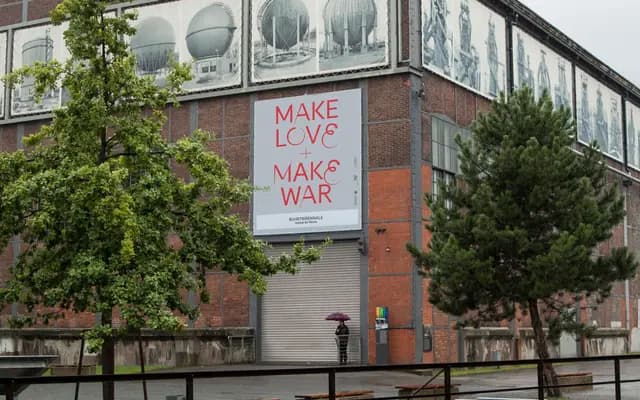
New Panam
Swiss Typefaces · Ian Party and Emmanuel Rey
A humanist sans by Ian Party and Emmanuel Rey taking cues from mid-century airline and travel lettering.
Designed at Swiss Typefaces by Ian Party and Emmanuel Rey, New Panam draws on the visual language of mid-century aviation and travel graphics. The letterforms carry the organic stroke modulation of humanist sans-serifs, giving it warmth and readability across editorial and branding contexts. Font engineering was handled by Christoph Koeberlin.
New Panam follows in the tradition of humanist sans-serifs, drawing on mid-century airline lettering and travel graphics with organic, calligraphic stroke modulation typical of the humanist genre.